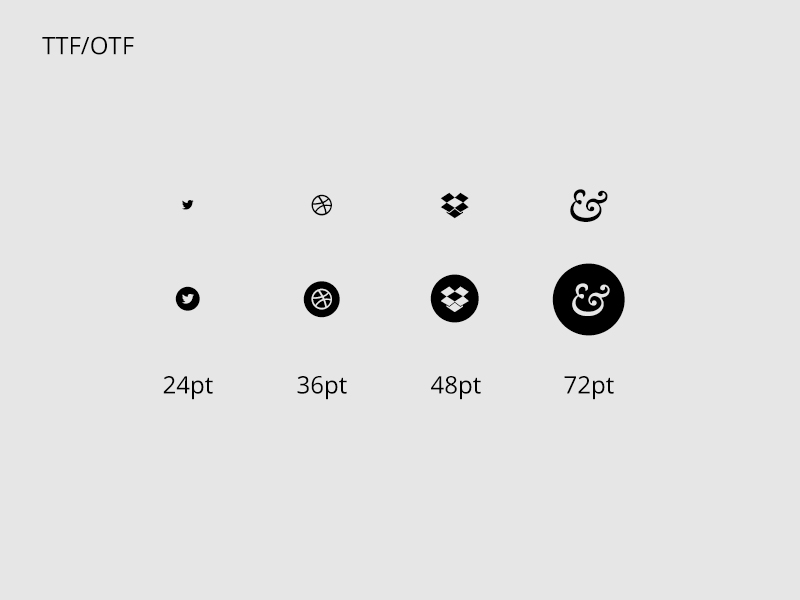
Social / Icon Font Package
This font is a collection of social icons for everything from the every day such as Facebook & Twitter to the more obscure such as Angel List, Coderbits, etc. Specifically created to be used in design and production work both in pre such as Photoshop and on the Web! Contains both variants for download.